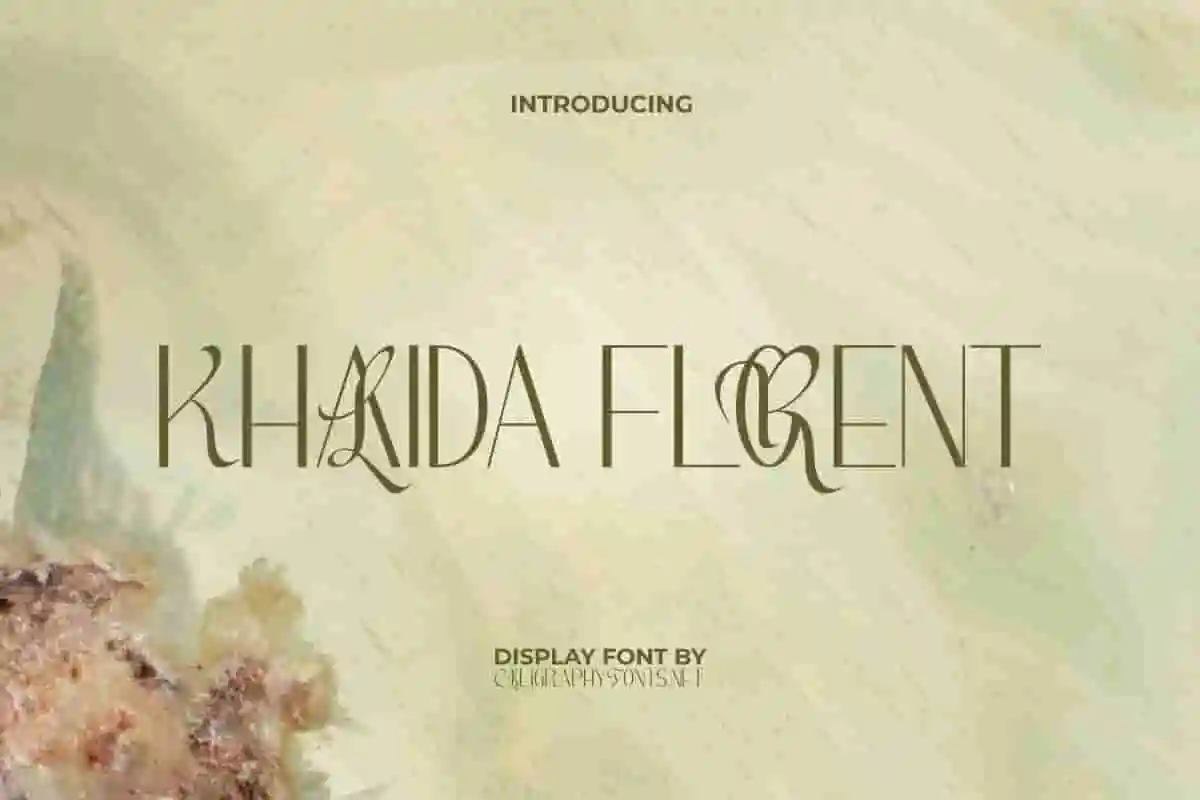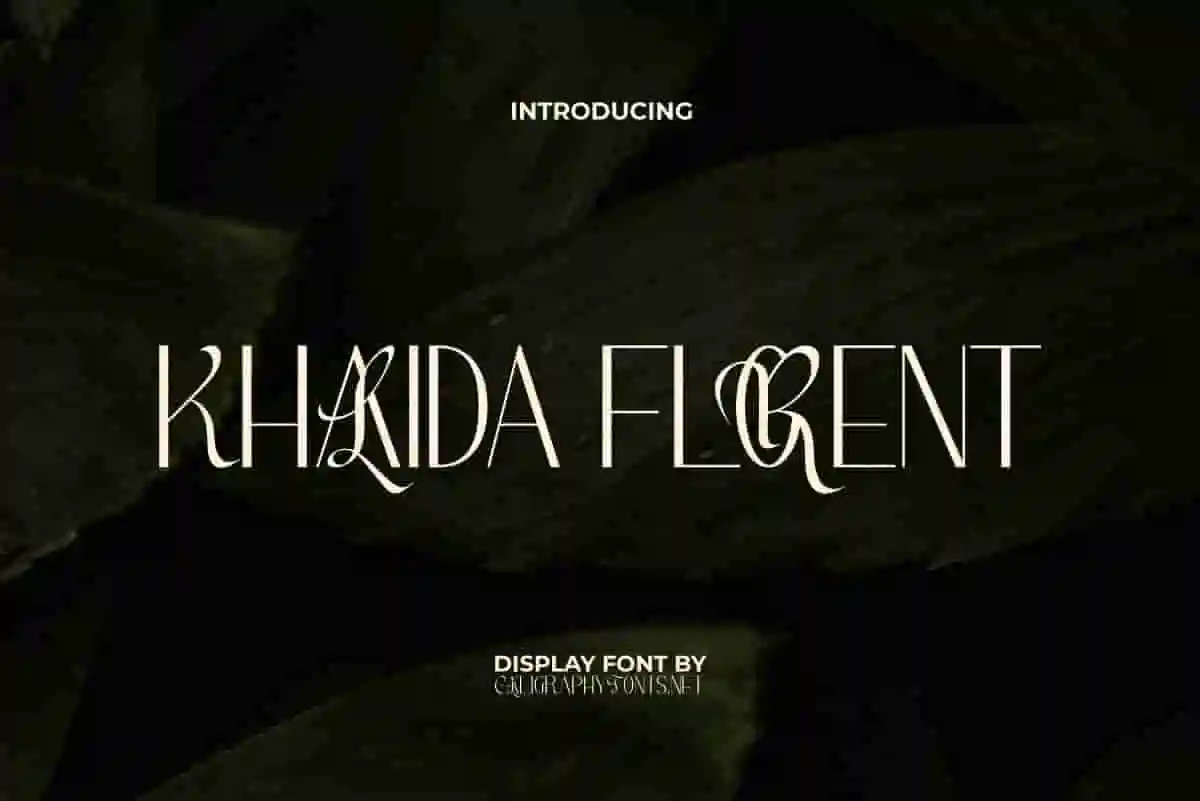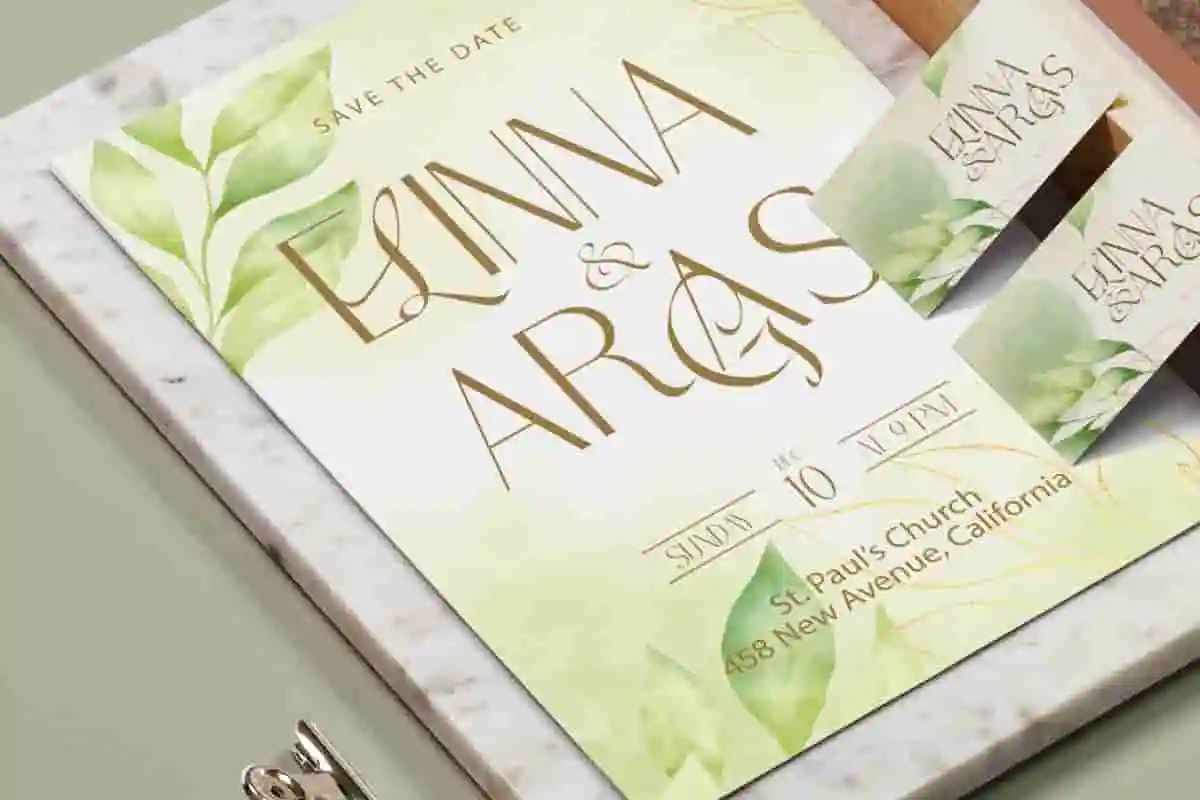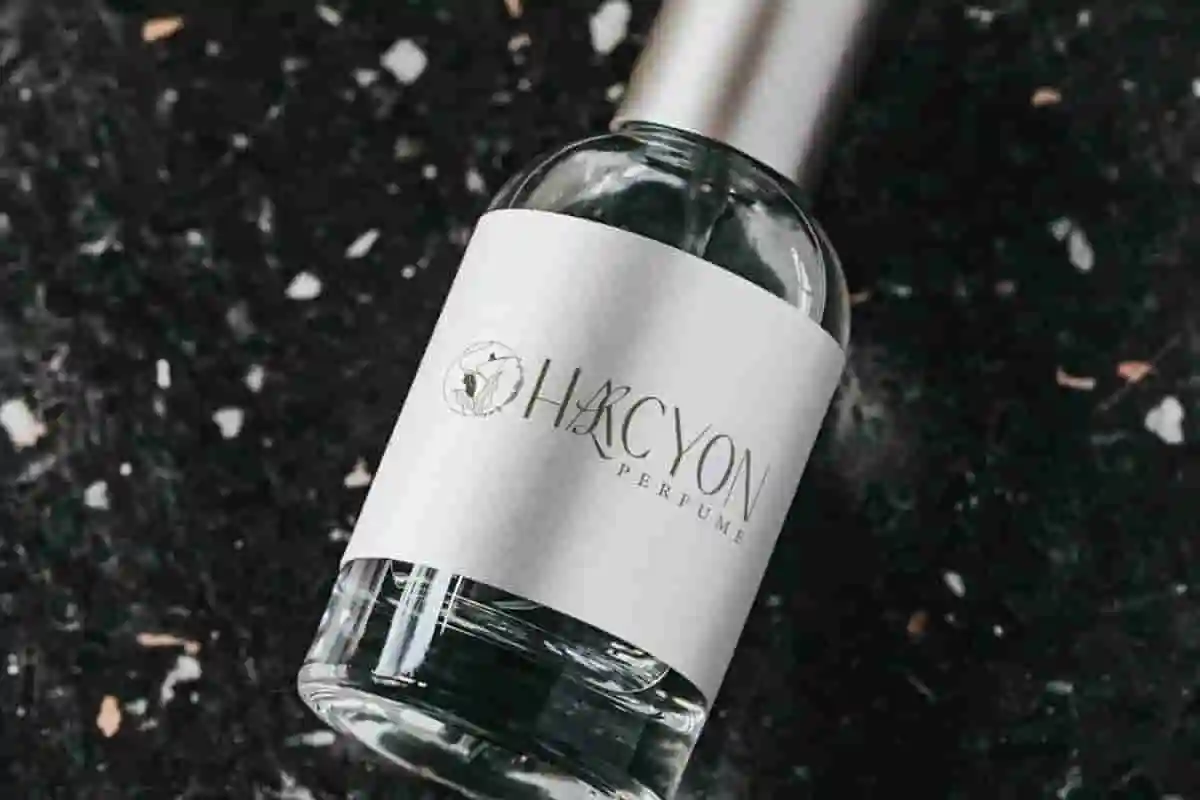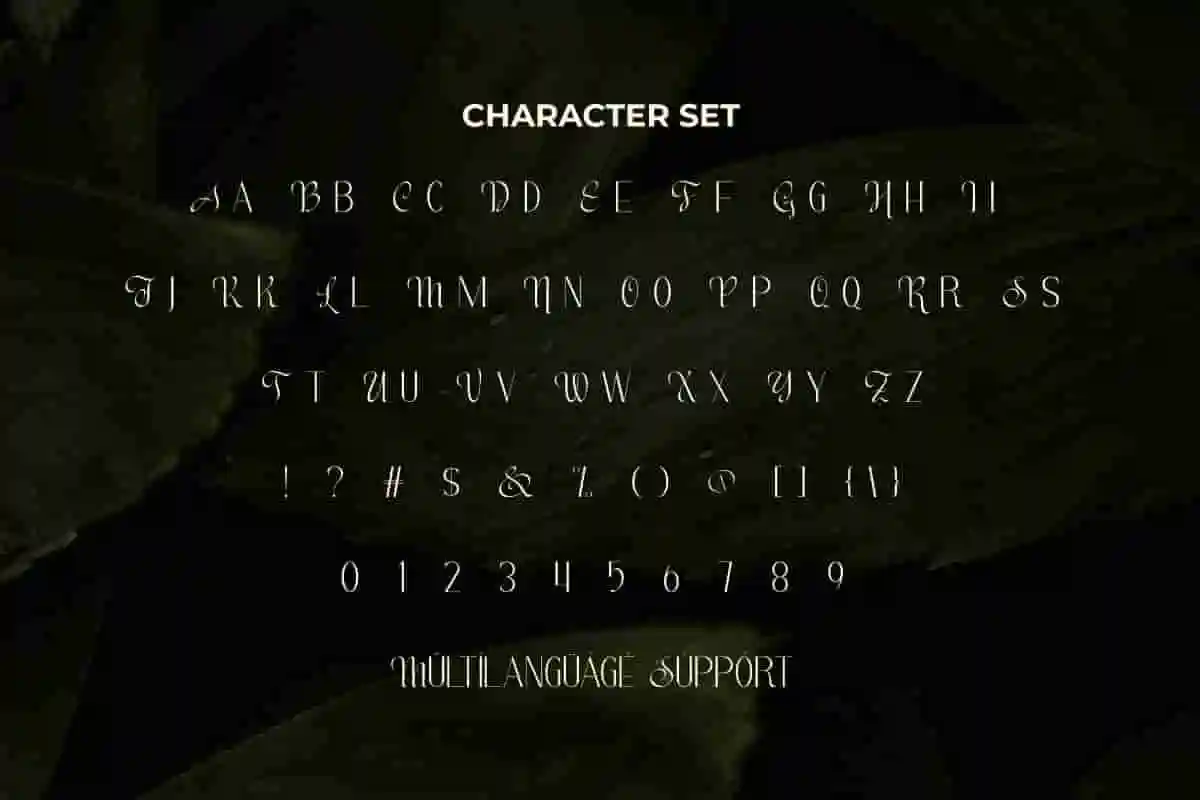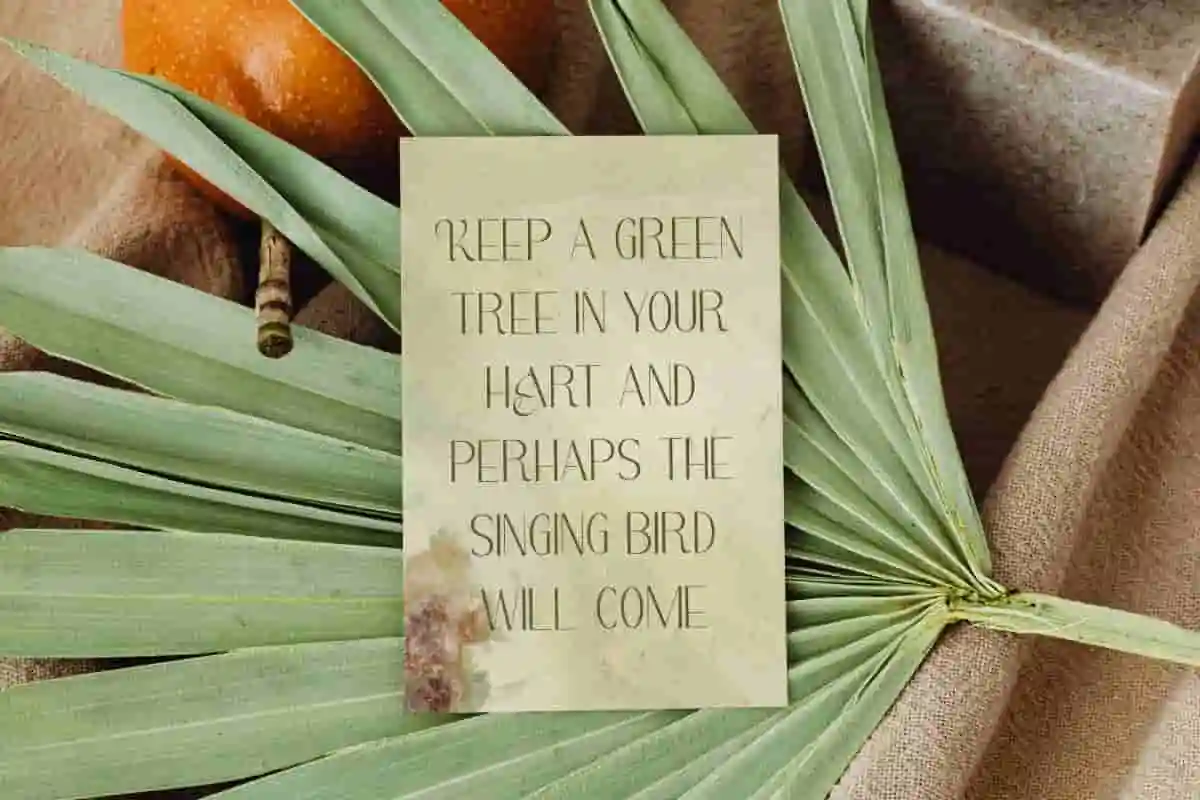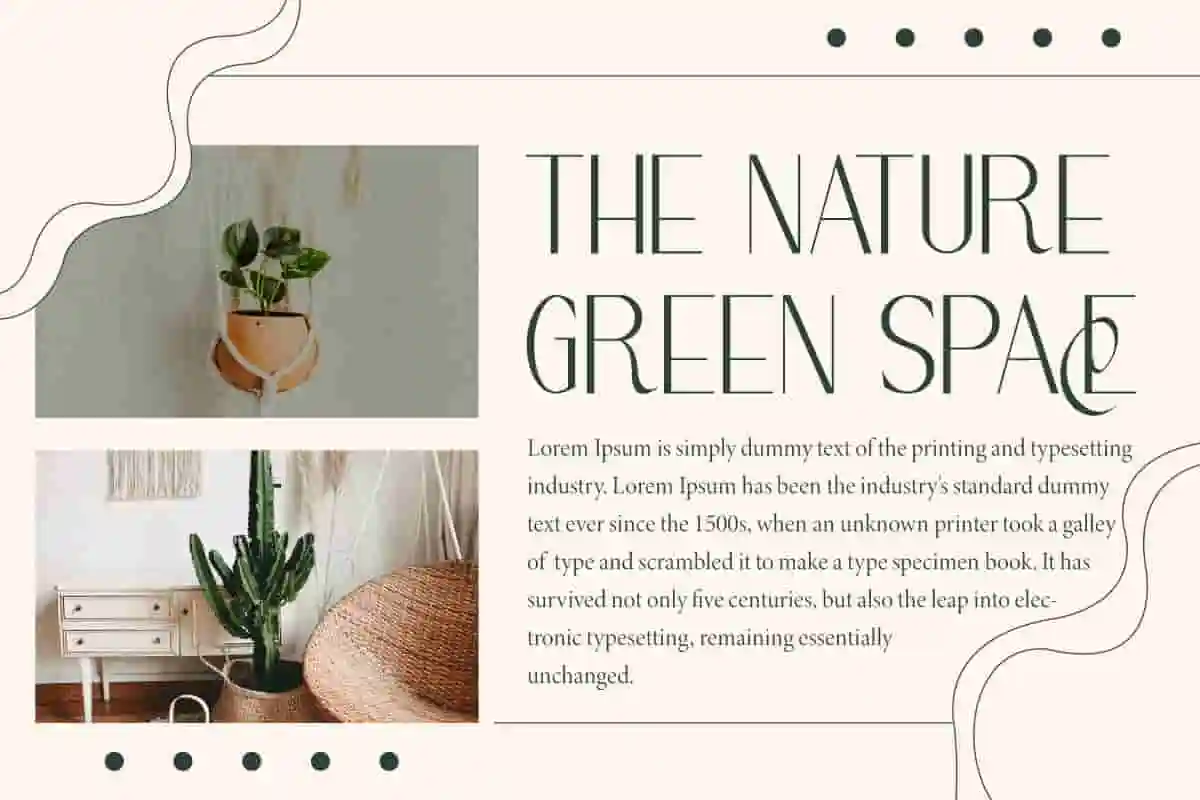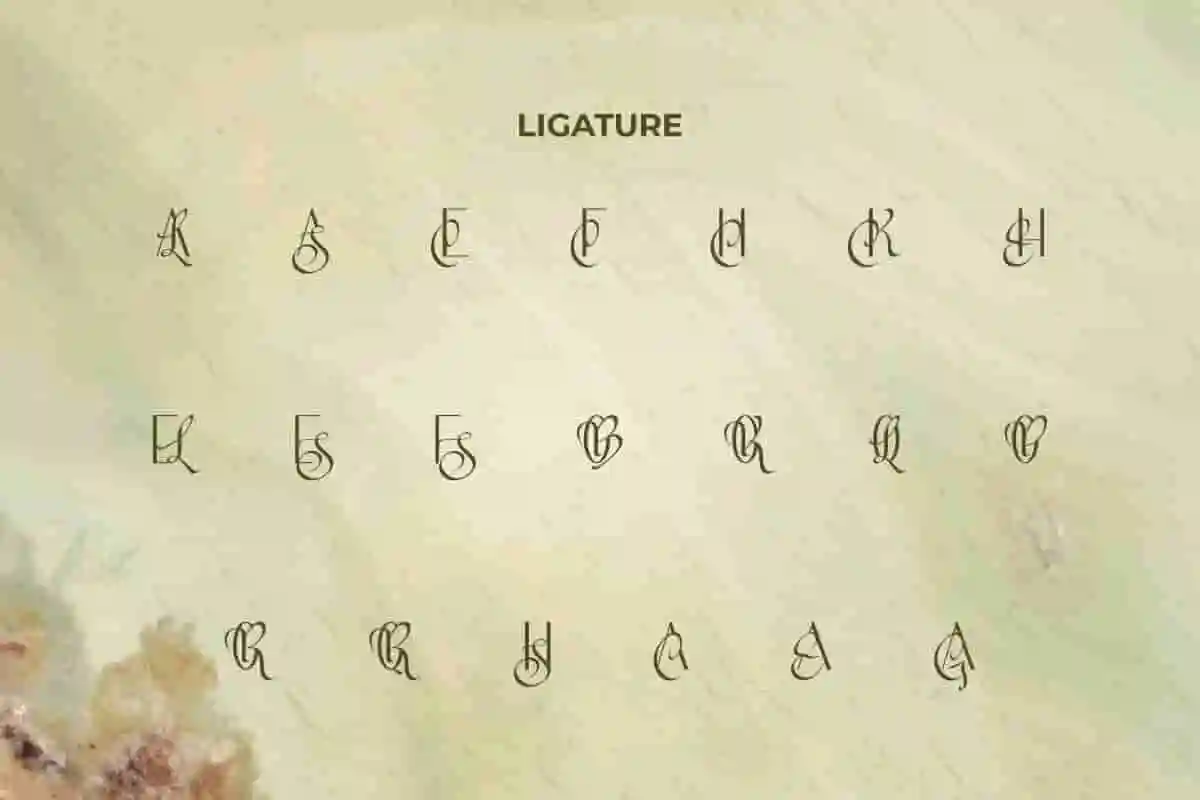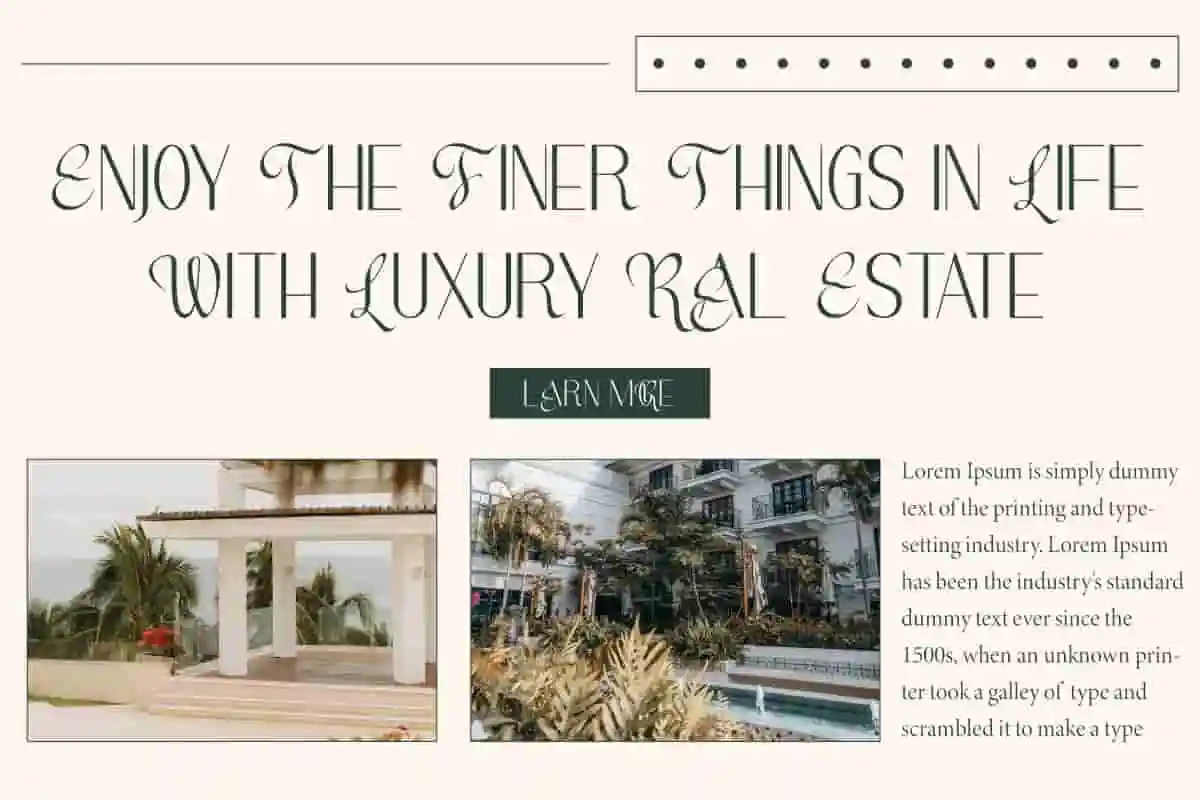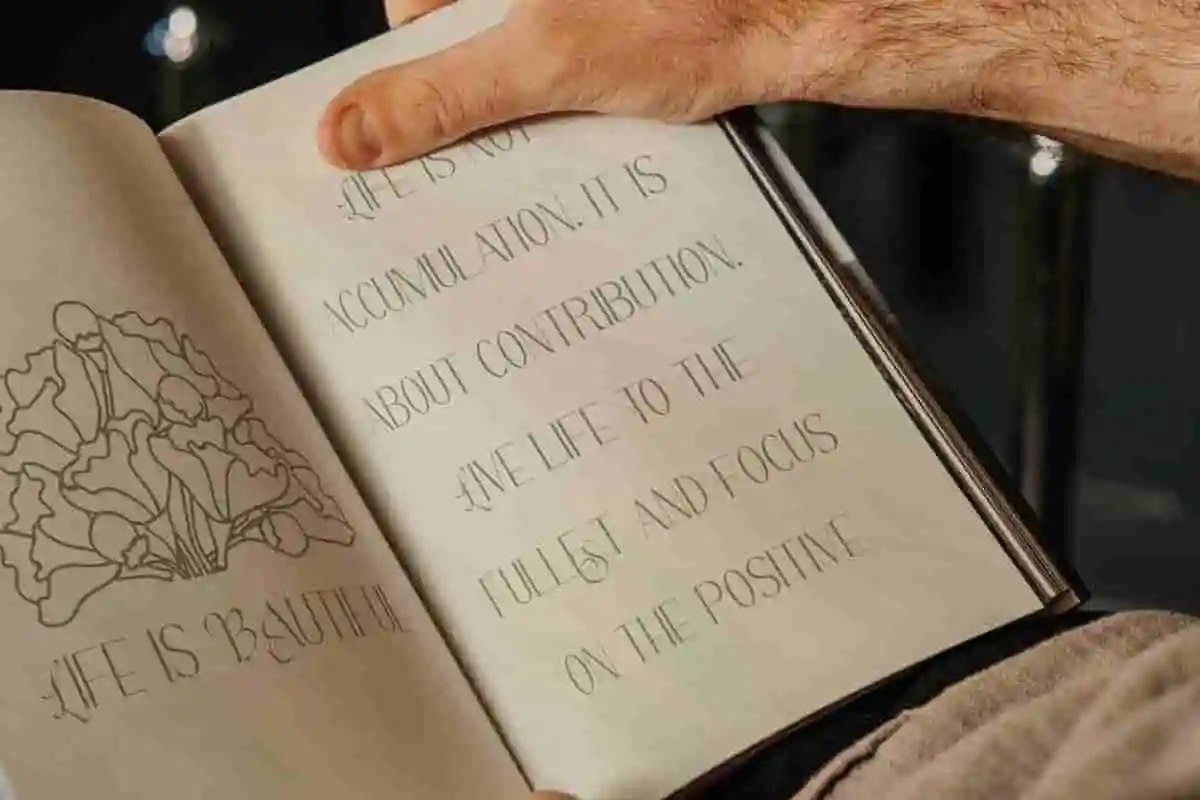
Khalida Florent Font
Khalida Florent Font is an elegant display typeface with a wide selection of ligatures. Filled with subtle uniqueness in graceful shapes, check out this font for your designs today!
Khalida Florent Font is a classy display font of the original sans serif form made unique with a luxurious touch. It will make anything feel elegant and trendy in one glance! This type of font is very suitable for blogs, brochure, card designs, greeting card, headers, invitations, label, logos, mockup, packaging, poster, quotes, stickers, template, titles, watermarks, websites, and much more.
Great design starts with great typography. Khalida Florent Display Font is a sophisticated display typeface that blends elegance with modern creativity. Designed to impress, this font brings a refined touch to projects that need both beauty and personality.
With its artistic curves, stylish strokes, and graceful details, Khalida Florent is perfect for branding, fashion editorials, wedding invitations, product packaging, and luxury logos. Its bold yet elegant character makes it versatile for both digital and print, ensuring your message is always impactful and memorable.
In today’s crowded creative space, your typography is more than just letters—it’s your visual voice. Khalida Florent Display Font helps you communicate sophistication, confidence, and creativity through stunning letterforms. Its polished and timeless aesthetic is especially suited for fashion, lifestyle, luxury, and event-related designs.
Khalida Florent Display Font is a modern display font with lots of natural ligature characters with every curve looking beautiful and creative. It will enhance any branding project, such as advertising, architect, author, event organizer, fashion, gardener, graphic designs, home furniture, interior designs, perfume store, photography, printing, publishing, real estate, wedding, writers, and more.
Khalida Florent Display Font comes with a complete set of ALL CAPS for both Uppercase and Lowercase in two quite different looks, Number, Punctuation, Symbol and Ligature. It is supported with multilingual characters and ready to use both on Windows machine or Mac with simple installations. It’s tested to work well in the Adobe Apps (Illustrator, Adobe InDesign, Adobe Photoshop) CorelDraw, and others. PUA Encode Characters means you can access all the characters easily – Fully accessible without additional design software.